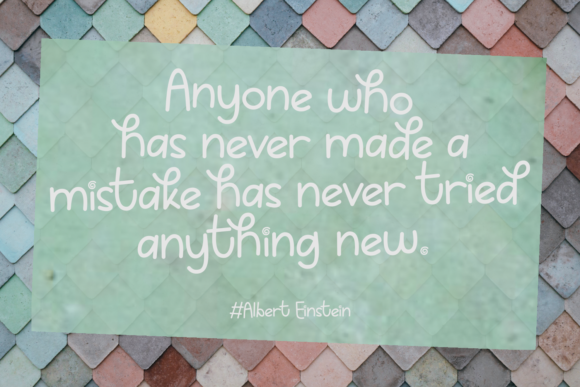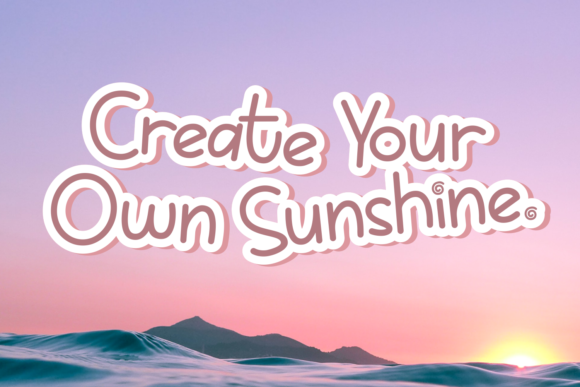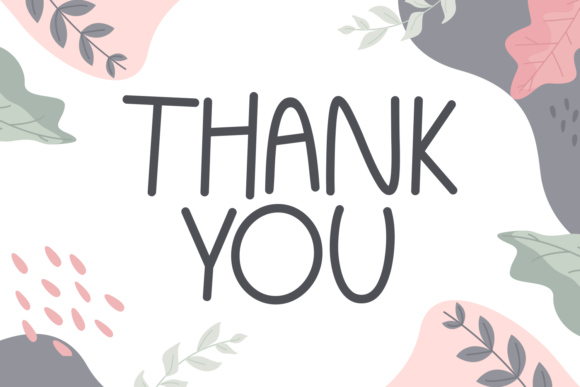
Miklo Font
About Miklo Font
Certainly! When it comes to choosing a font for children’s activities or school projects, it’s important to consider not only the playful and authentic style but also the legibility and readability of the font. While Miklo may have a whimsical charm, it’s essential to ensure that the letters are clear and easily recognizable, especially for young readers.
In educational materials, fonts play a crucial role in facilitating learning and comprehension. Therefore, it’s recommended to test the font in different sizes and contexts to ensure it maintains its readability across various mediums. Additionally, considering factors such as letter spacing and line height can further enhance the overall readability of the text.
Furthermore, it’s worth mentioning that using a font consistently throughout the project can create visual cohesion and establish a recognizable brand for educational materials. However, it’s also essential to strike a balance between consistency and variation to maintain visual interest and engagement.
In summary, Miklo can be a fantastic choice for children’s activities and school projects, as long as its legibility and readability are carefully considered. By ensuring that the font is clear and easy to read, you can enhance the learning experience and capture the attention of young learners.